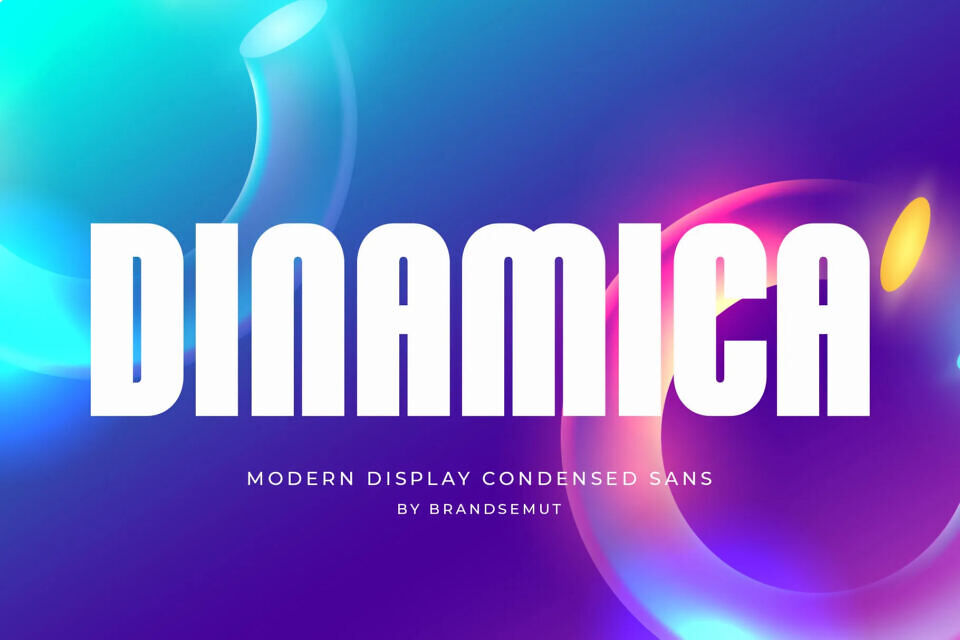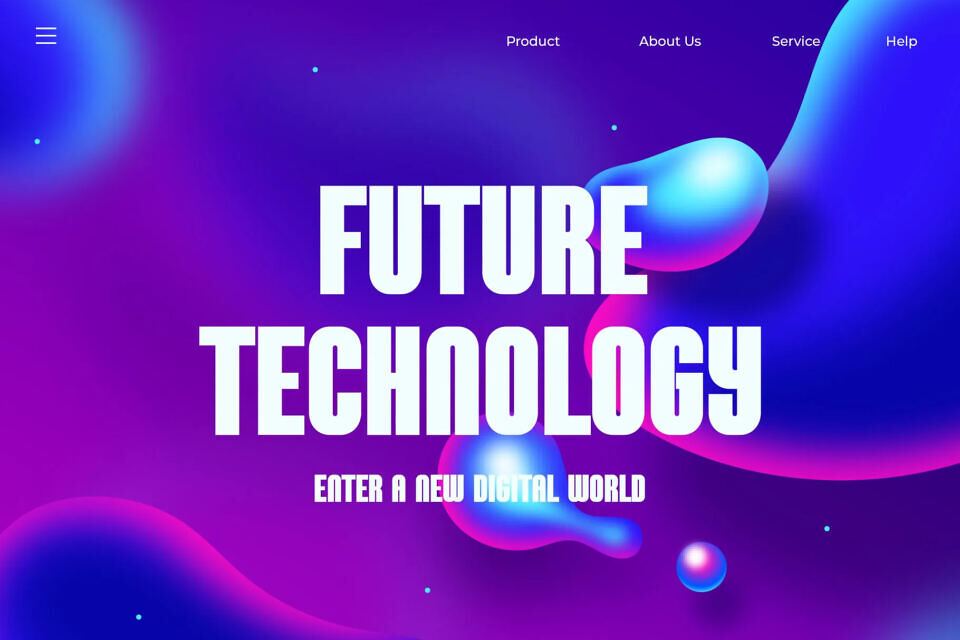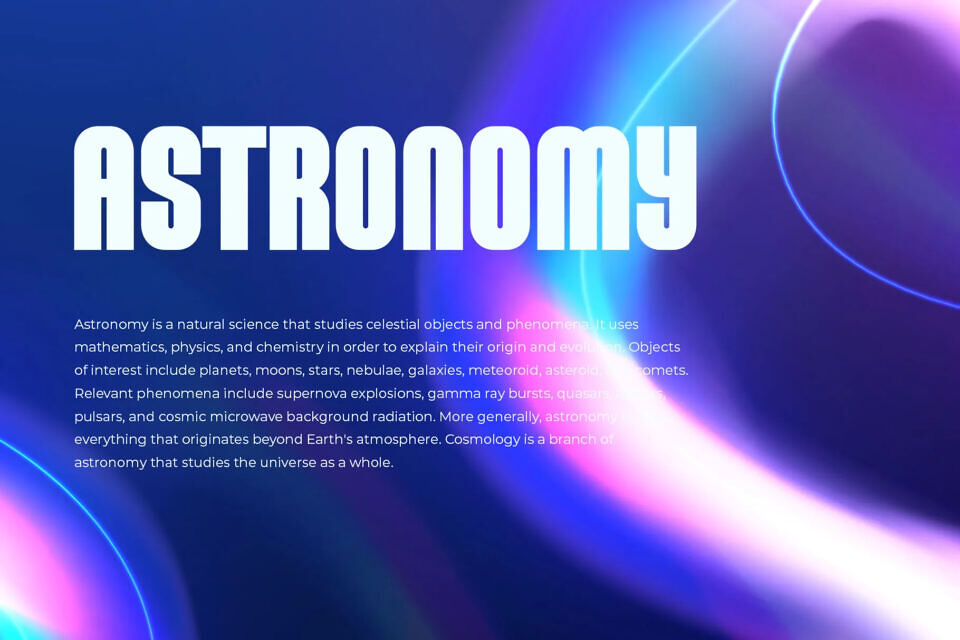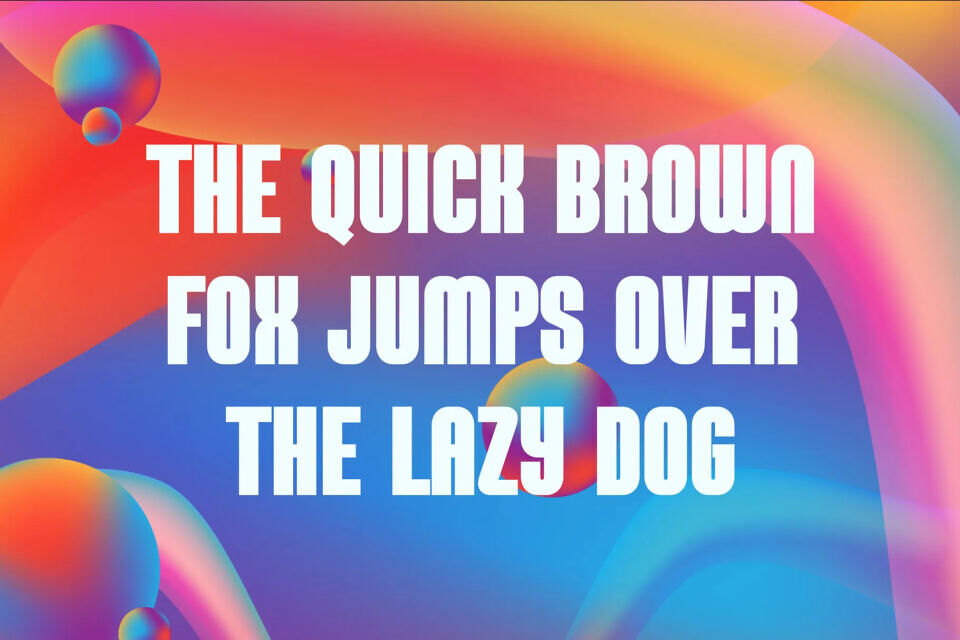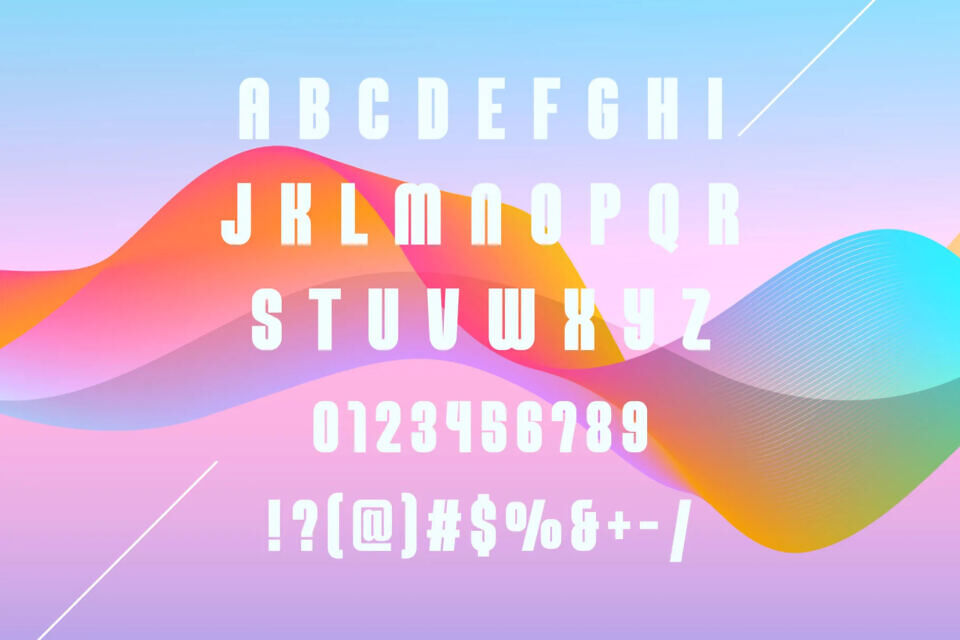
Dinamica is a modern and simple font, best used as a display for headings, logos, branding, magazines, product packaging and invitations. Dinamica come with clean lines and smooth curves give any project an extra touch of class.